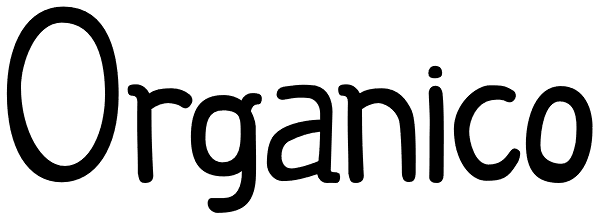
Organico
Organico was created as an organic, hand made font. It is designed to be adaptable and useable across a wide range of markets, brands and disciplines. It has upper and lowercase characters with alternatives for all, as well as all the other glyphs...